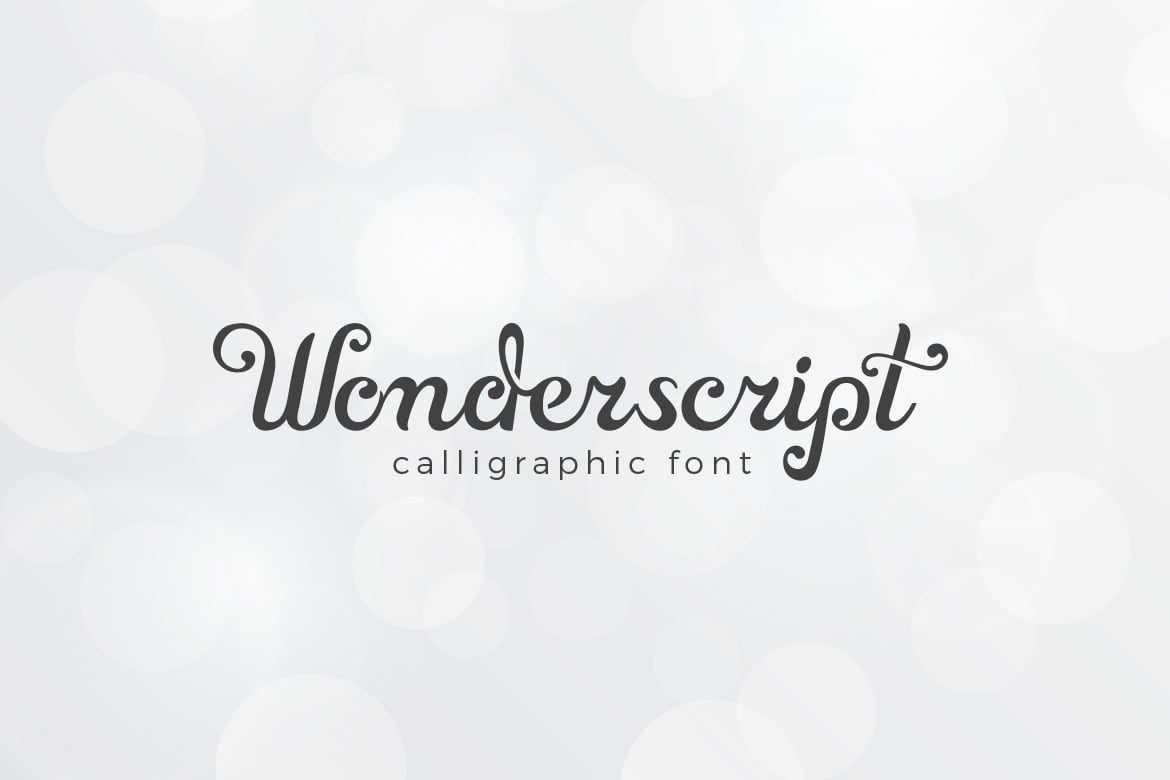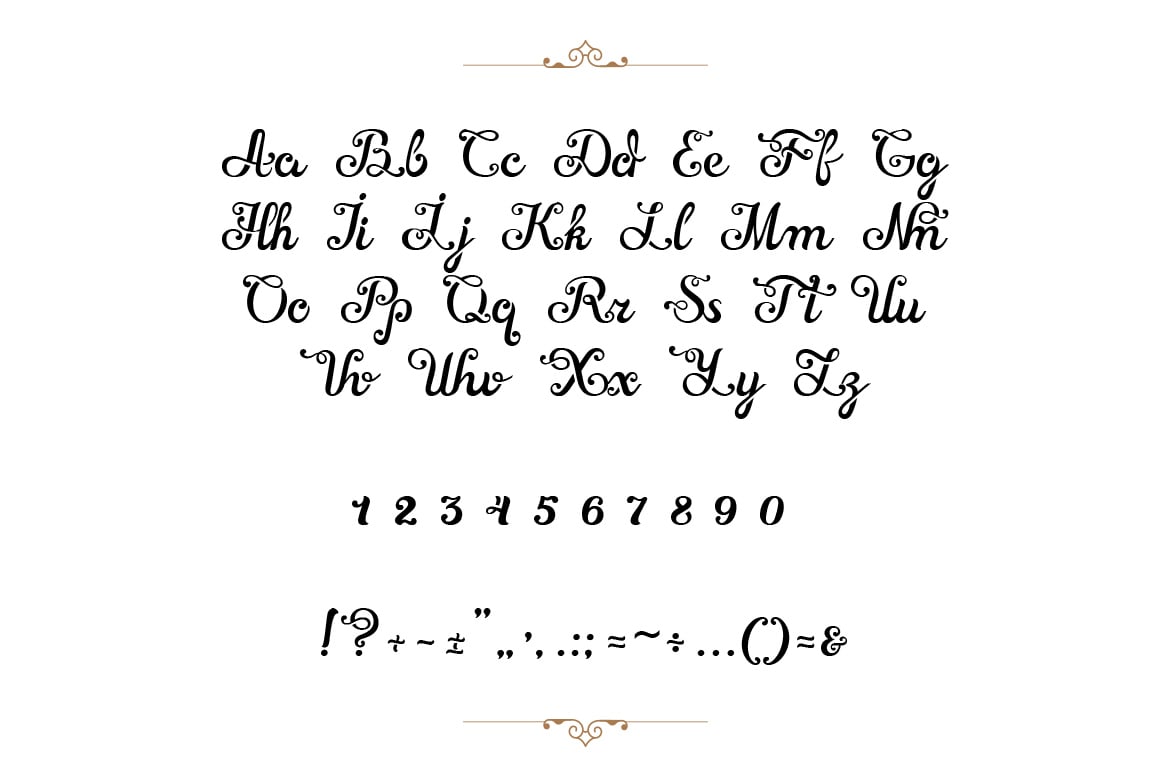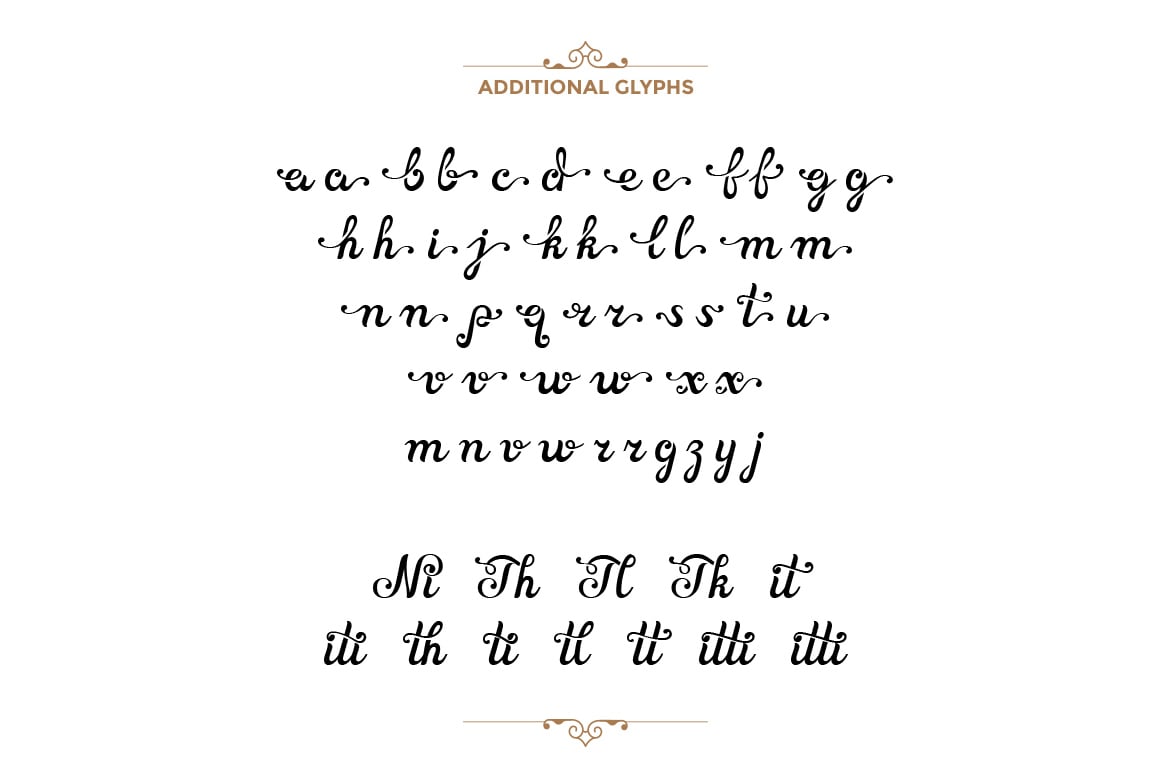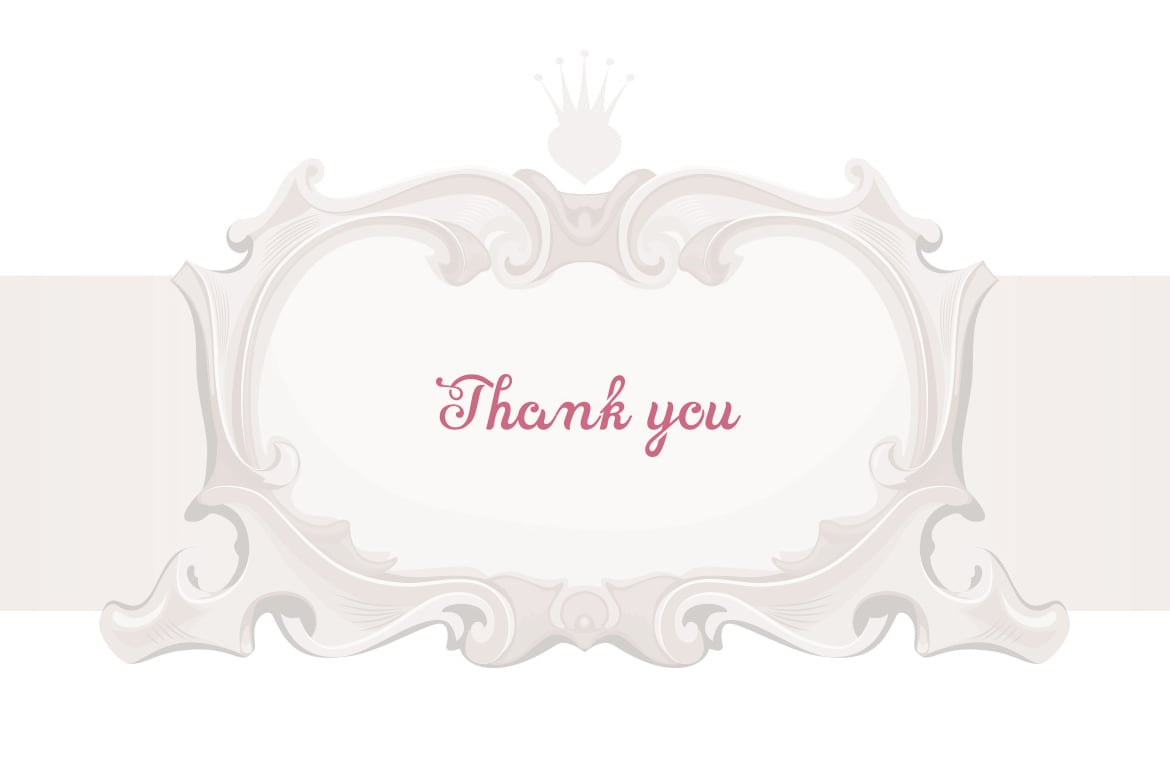
Wonderscript Calligraphic Font
Wonderscript Typeface is a beautiful handmade calligraphic script give the accurate looks. Made with Love, Magic and Wonder:)
Alternate characters contain with opentype features. Stylistic alternates, Ligature and more. You can access all those alternate characters by using OpenType savvy programs such as Adobe Illustrator and Adobe InDesign.
Great for Invitations & greeting cards, Apparel Brands, Logos, Printed quotes, product packaging, text headers, book cover.